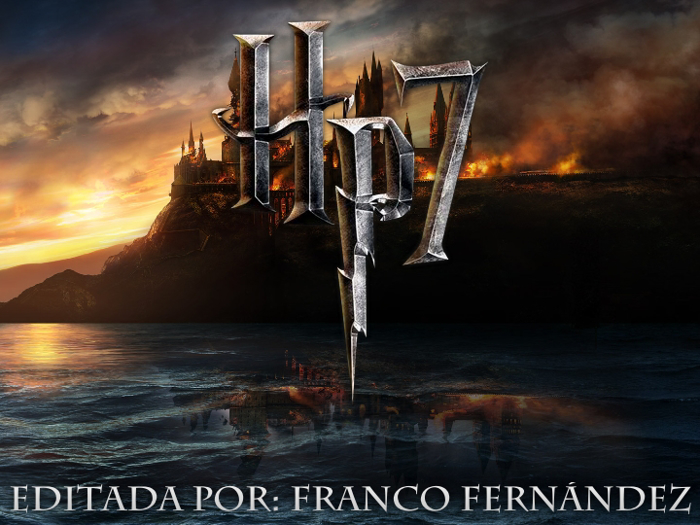
HarryPotter7 Font
NUEVA FUENTE DE LA SAGA HARRY POTTER USADA RECIENTEMENTE
13 years agoThis one actually works a little better than Charlemagne. It doesn't lose as many horiz. strokes. There aren't as many characters either but, meh.
4 years agoI Think They Used This For The "Pixar" Font
3 years agoThis looks like the font from the intro "Pixar Animation Studios".
I believe they used the "Diamonds" font 😉